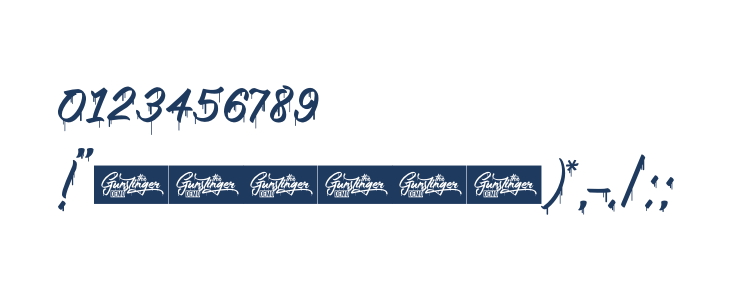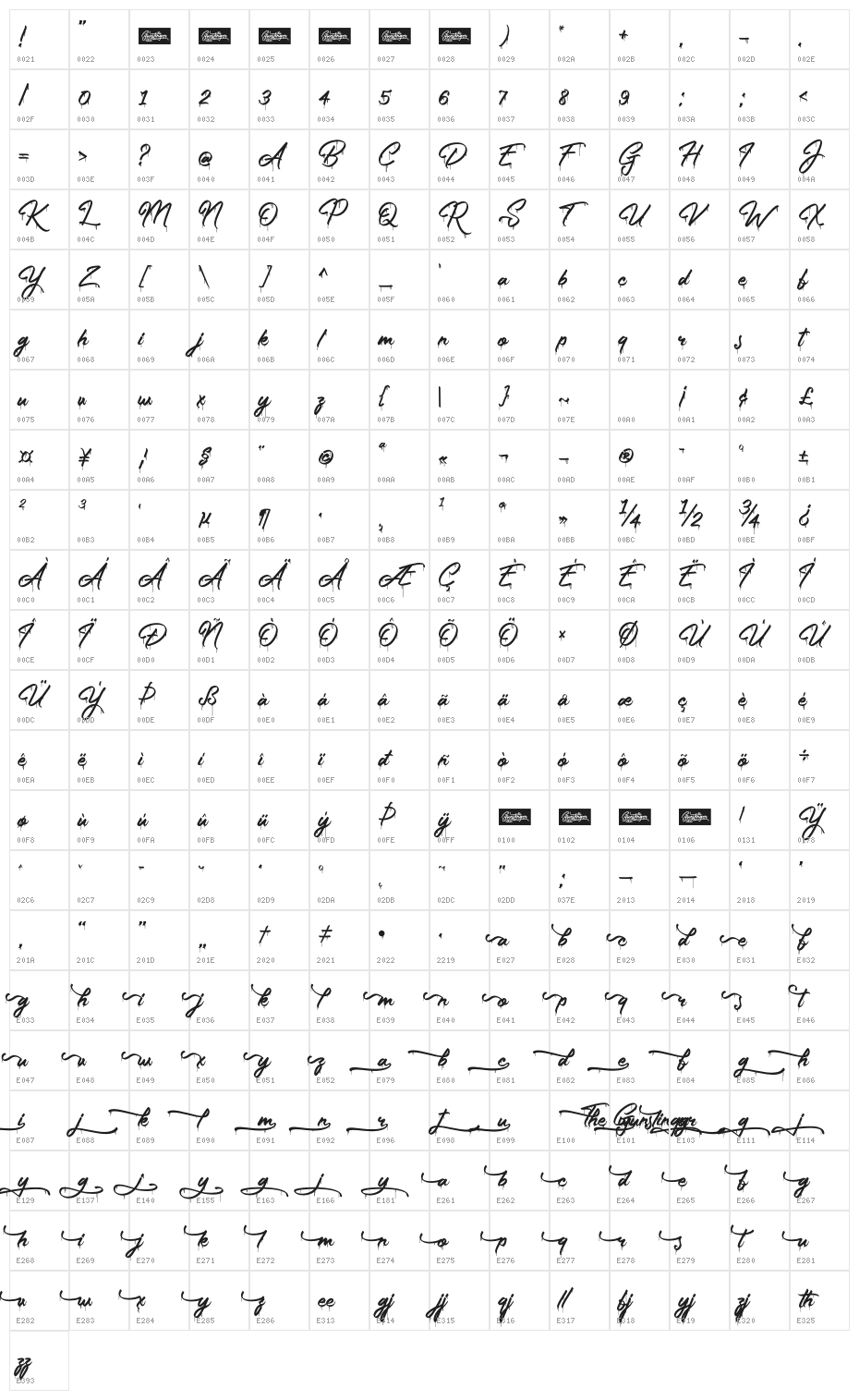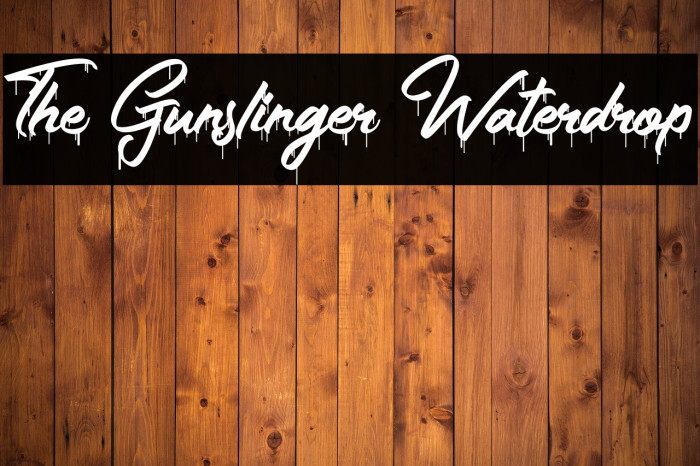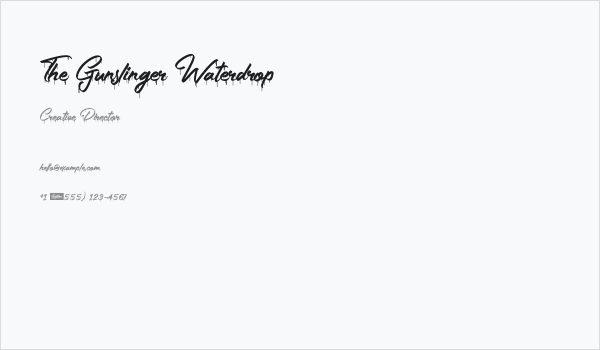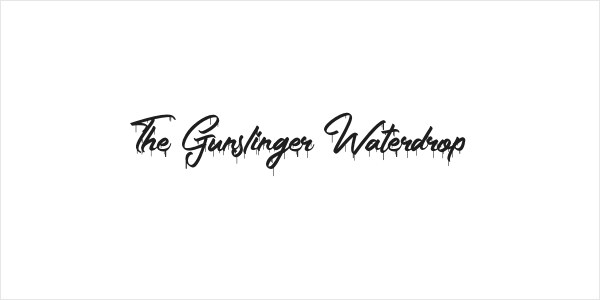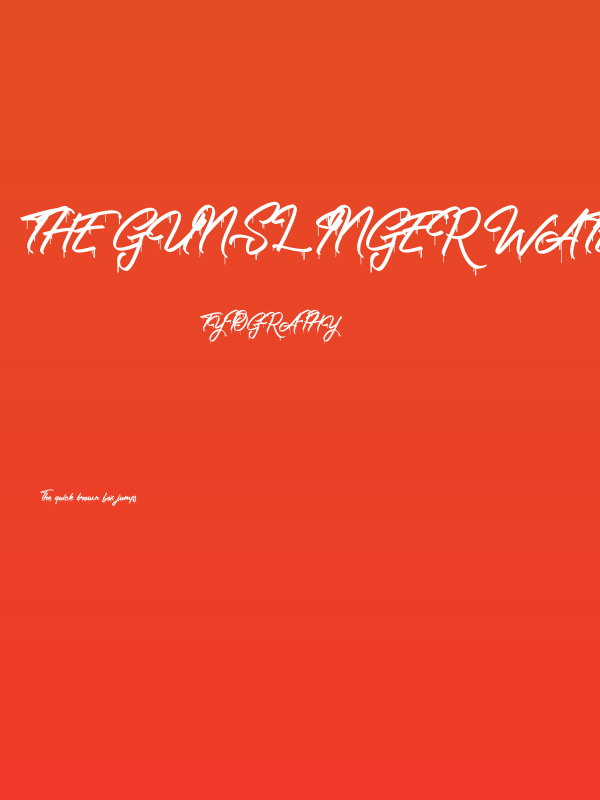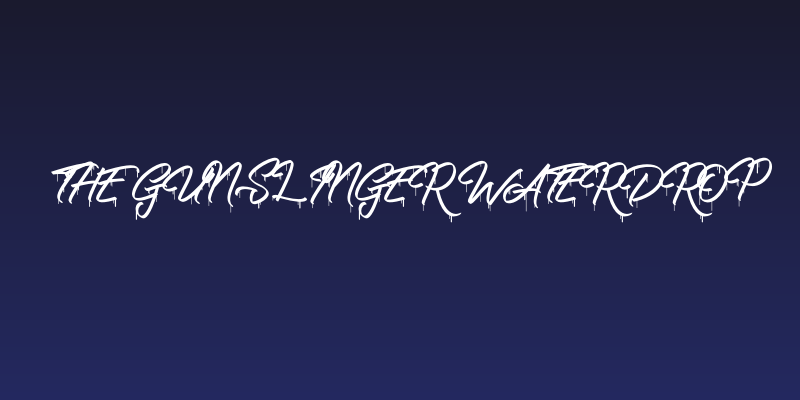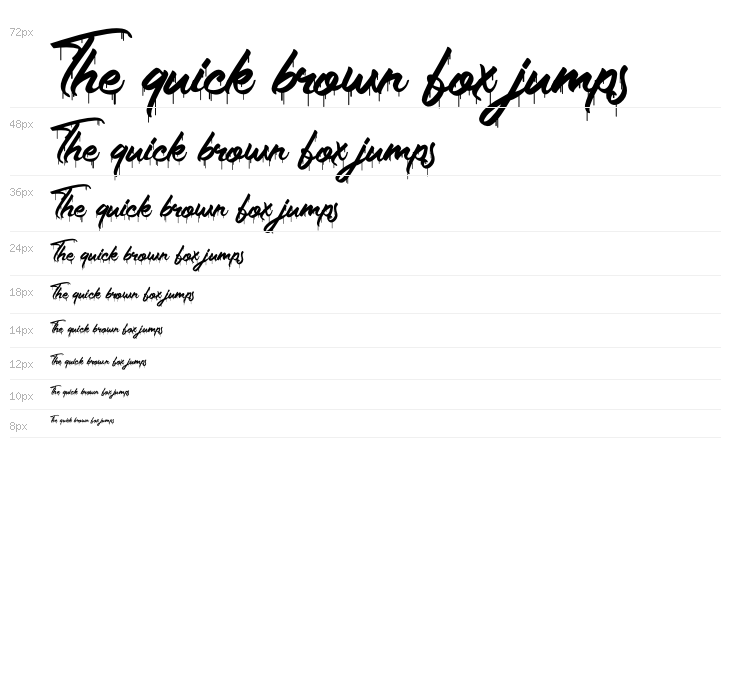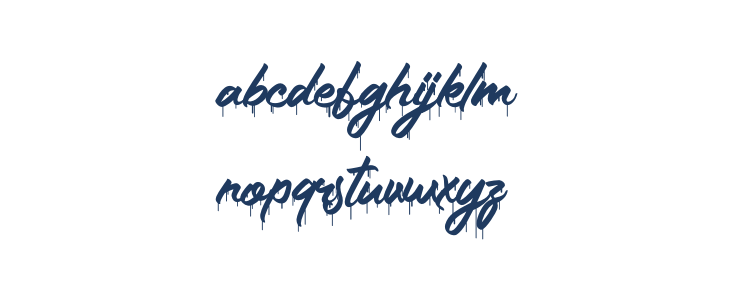
The Gunslinger Waterdrop Font
The Gunslinger Waterdrop Description
This font features a unique and artistic style, characterized by its dripping effect that resembles wet paint or ink. The letters are crafted with a fluid, cursive script that gives an impression of motion and creativity. The uppercase and lowercase letters maintain a consistent style, with the uppercase being slightly more elaborate. Numbers and special characters are included, each maintaining the dripping motif. This font is ideal for projects that require a bold, artistic statement, such as posters, album covers, or creative branding. The overall appearance is both edgy and elegant, making it suitable for modern and unconventional designs.
| Use Case | Headlines, Logos, Artistic projects |
| Proposed Projects | Posters, album covers, creative branding, artistic projects. |